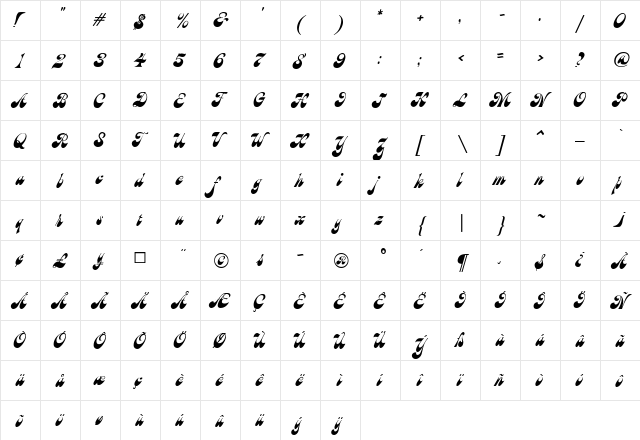
Brandy Script
| Style | Script |
Design Context for Brandy Typeface
Brandy flows with the natural rhythm of handwritten lettering, making it ideal for designs that call for warmth and personal expression.
Font Pairing: Combine Brandy with a simple geometric sans for maximum contrast — the tension between flowing curves and clean structure is a classic typographic pairing.
Pro Tip: Use Brandy for short runs of text — names, titles, or taglines. Extended body copy in script faces tires the eye quickly.